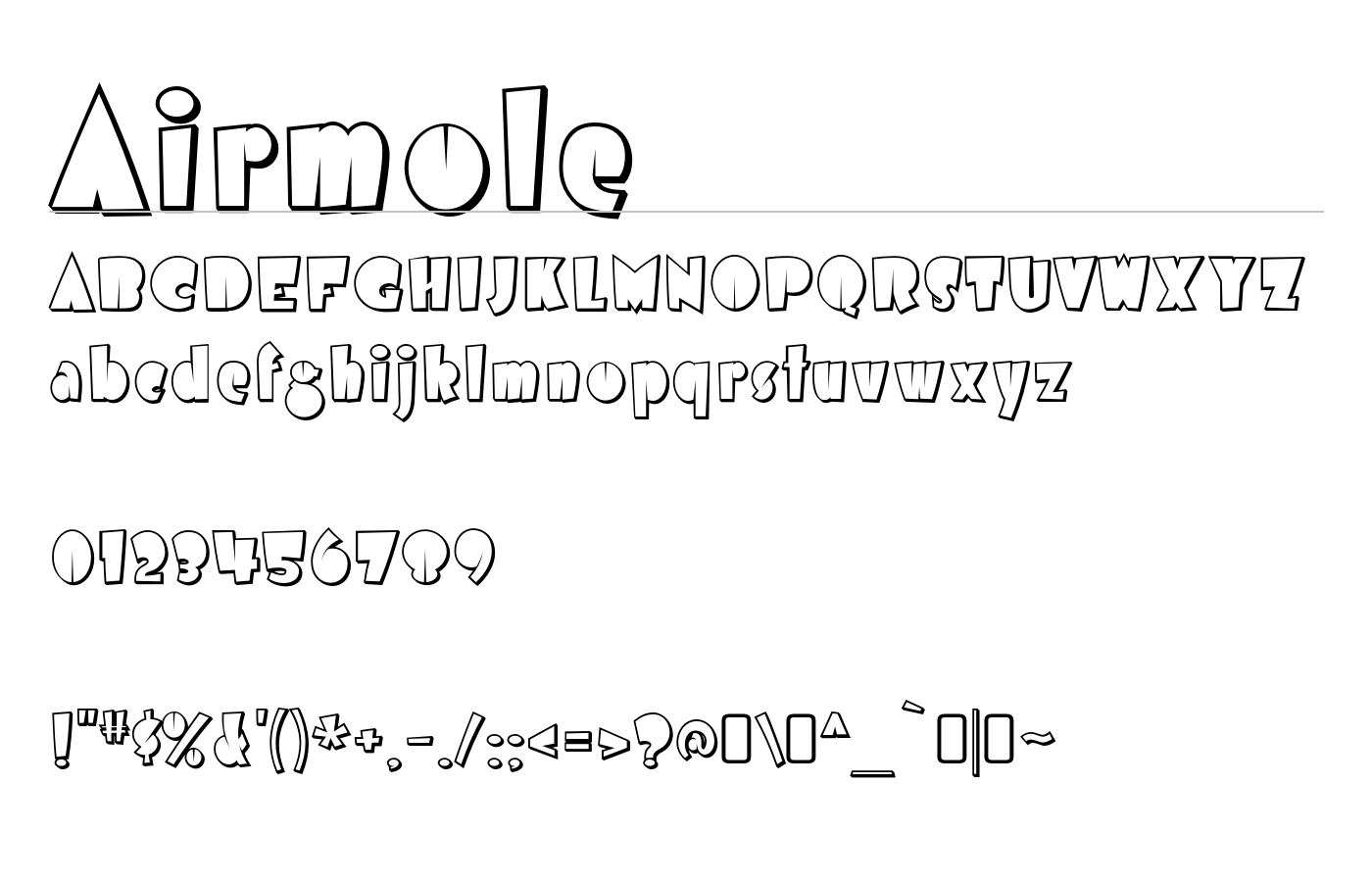
Airmole is a playful and quirky sans serif font with a bold, irregular outline and a slightly condensed width that gives it a unique, hand-drawn feel. Its fun shapes and mix of geometric and organic elements make it great for creative, informal designs like posters, children’s books, or branding that wants to stand out with personality. This font works best in display settings where its distinctive style can grab attention and add a lively, whimsical touch.
About Airmole Font
| Designer | Ray Larabie |